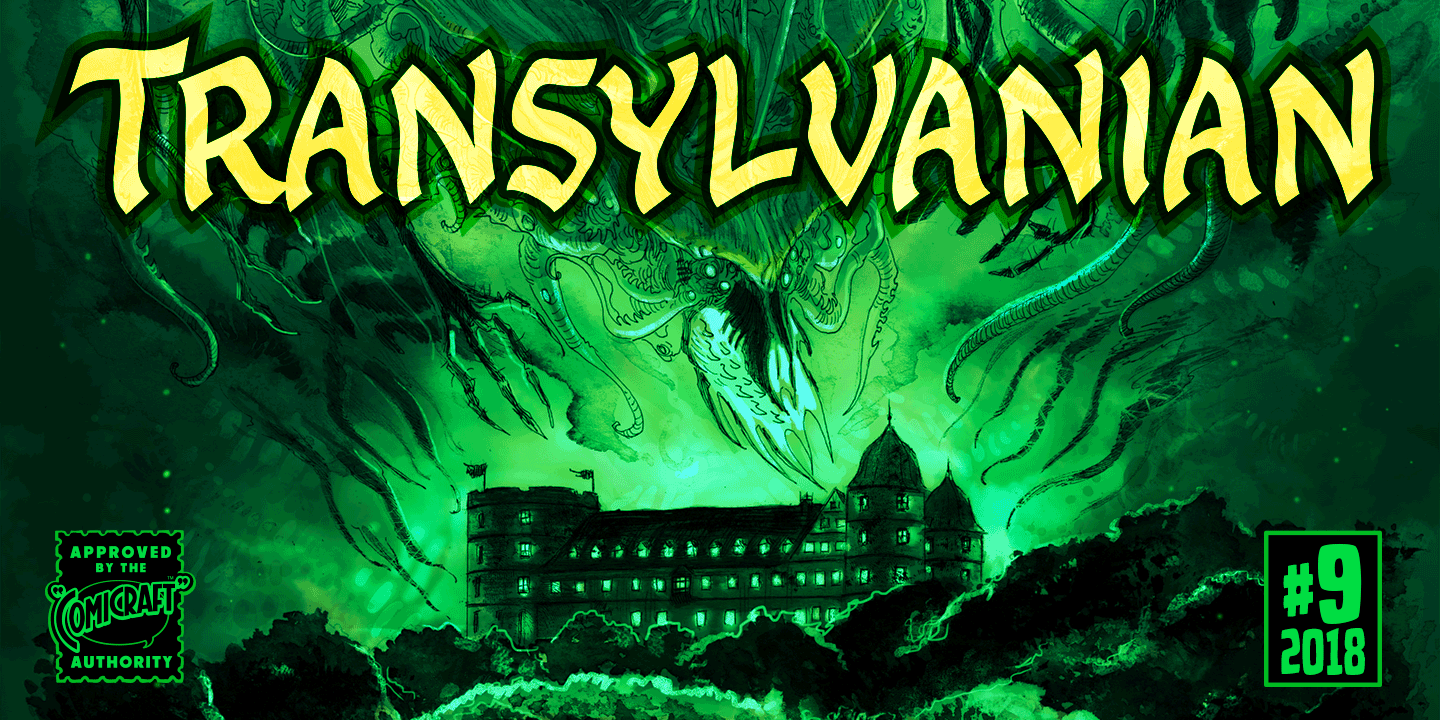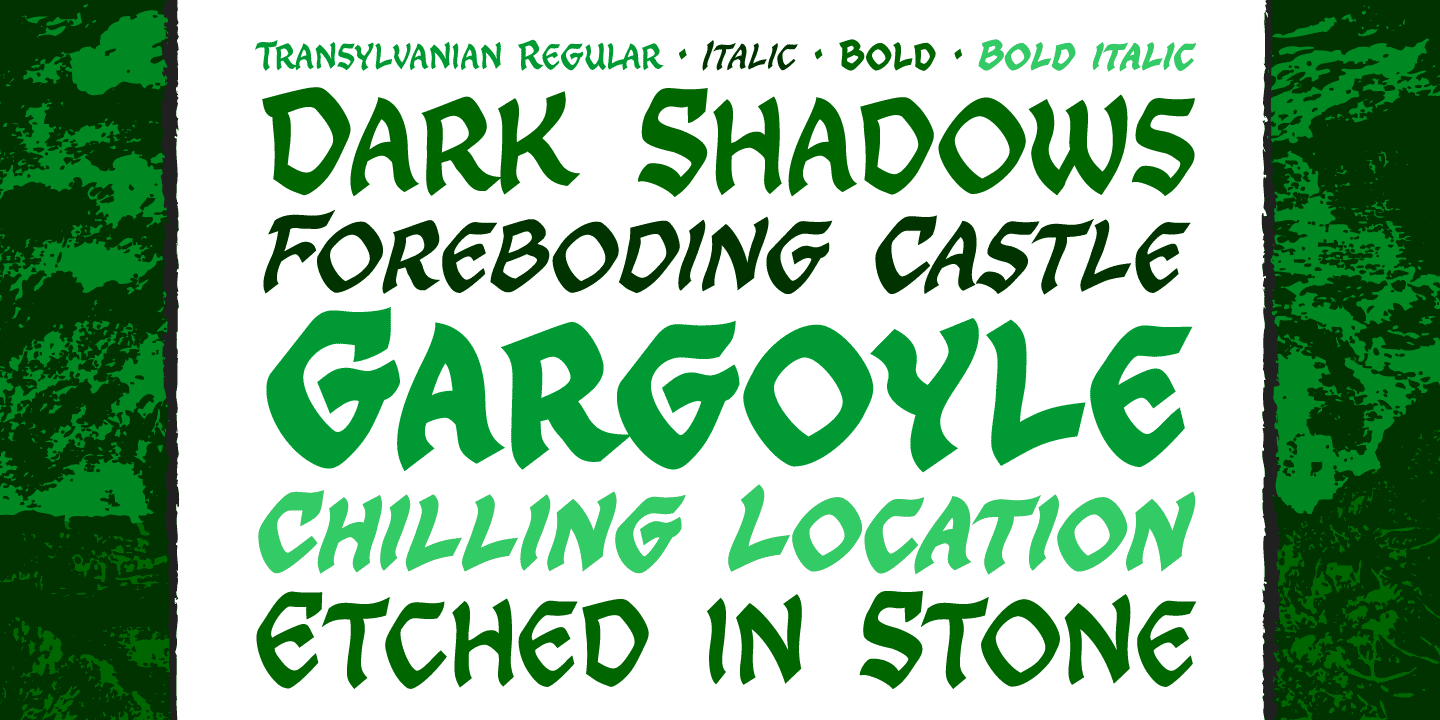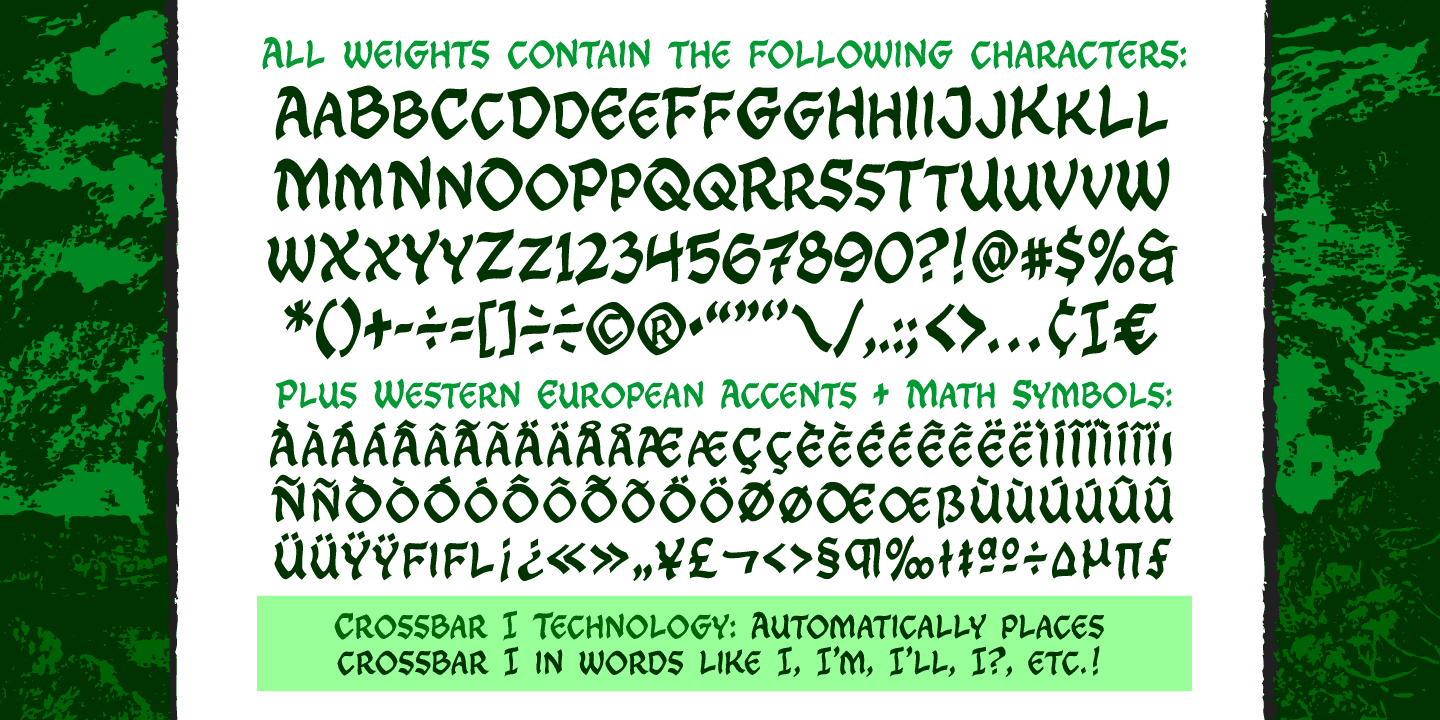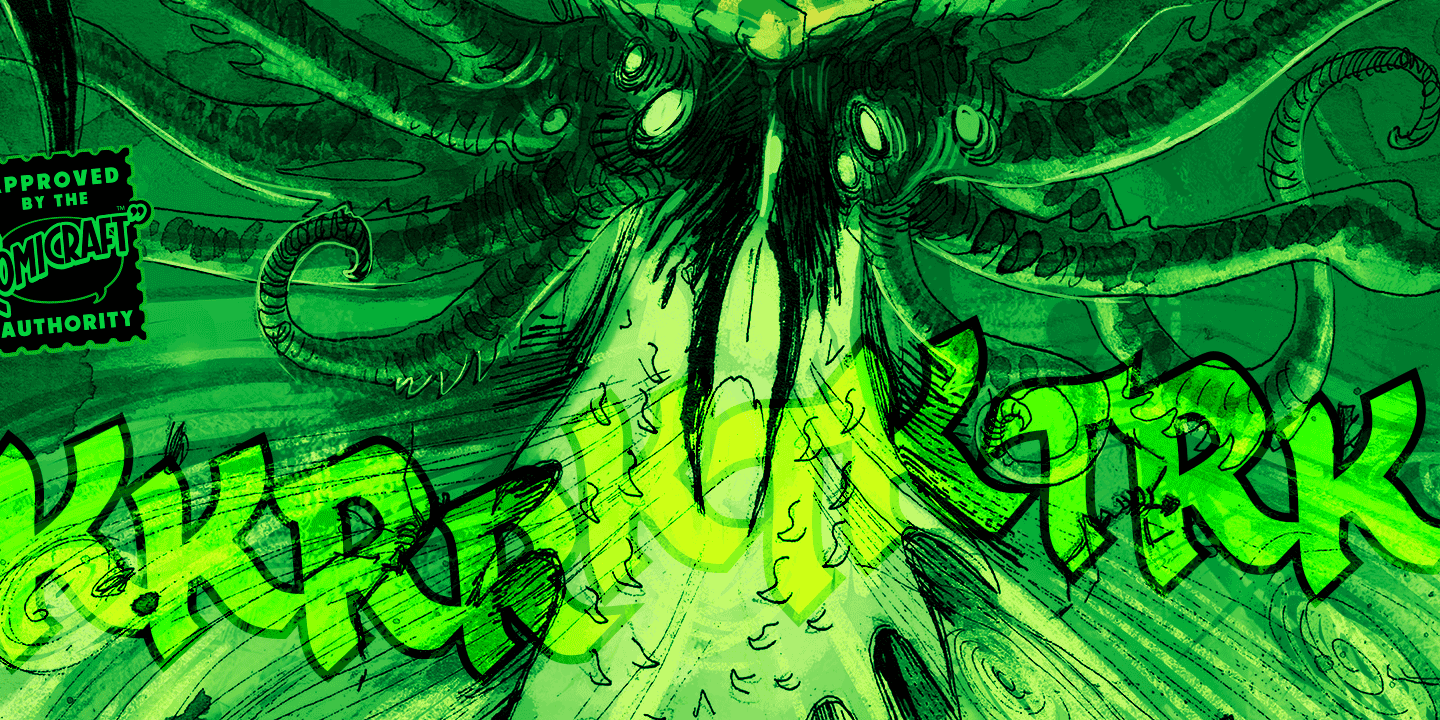
Transylvanian
Font Family by Comicraft Fonts
At the end of every road in Transylvania stands a dark, foreboding castle, seemingly clouded by impossibly dark shadows. Bat-like creatures scurry across its gargoyle-festooned towers, and slimy green patches of moss climb inexorably up its cold walls.
Blood has been spilt in the tombs of this chilling location, and there, etched in stone above the arched entranceway, is inscribed -- in Comicraft's TRANSYLVANIAN typeface -- a simple legend: ABANDON ALL HOPE YE WHO ENTER HERE.